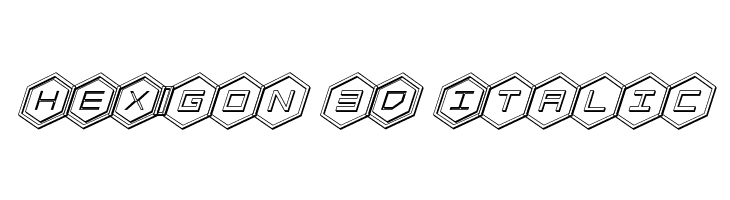
A bold, italicized 3D hexagonal font with a futuristic and geometric style.
A bold, geometric font with characters enclosed in hexagons, offering a modern and striking appearance.
A bold, italicized font with characters in hexagonal shapes, offering a futuristic and tech-inspired look.
A bold, hexagonal, and condensed font with a modern, futuristic style.
A bold, hexagonal, condensed italic font with high contrast and geometric style.
A bold, hexagon-enclosed font with a modern, geometric style.
A bold, italicized font with characters enclosed in hexagons, offering a futuristic and structured appearance.
A bold, geometric font with italicized characters enclosed in hexagons, perfect for modern designs.
A geometric font with characters enclosed in hexagons, offering a futuristic and structured look.
A bold, geometric font with characters enclosed in hexagons, ideal for modern and decorative projects.